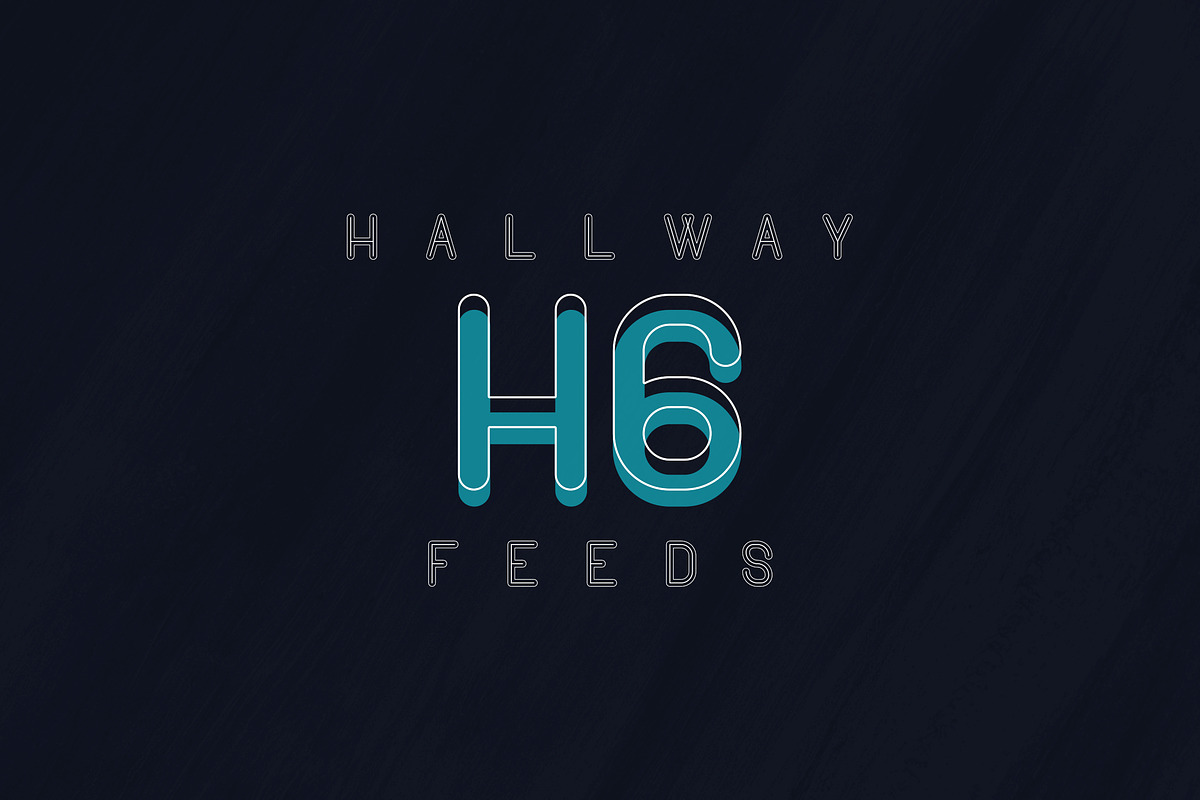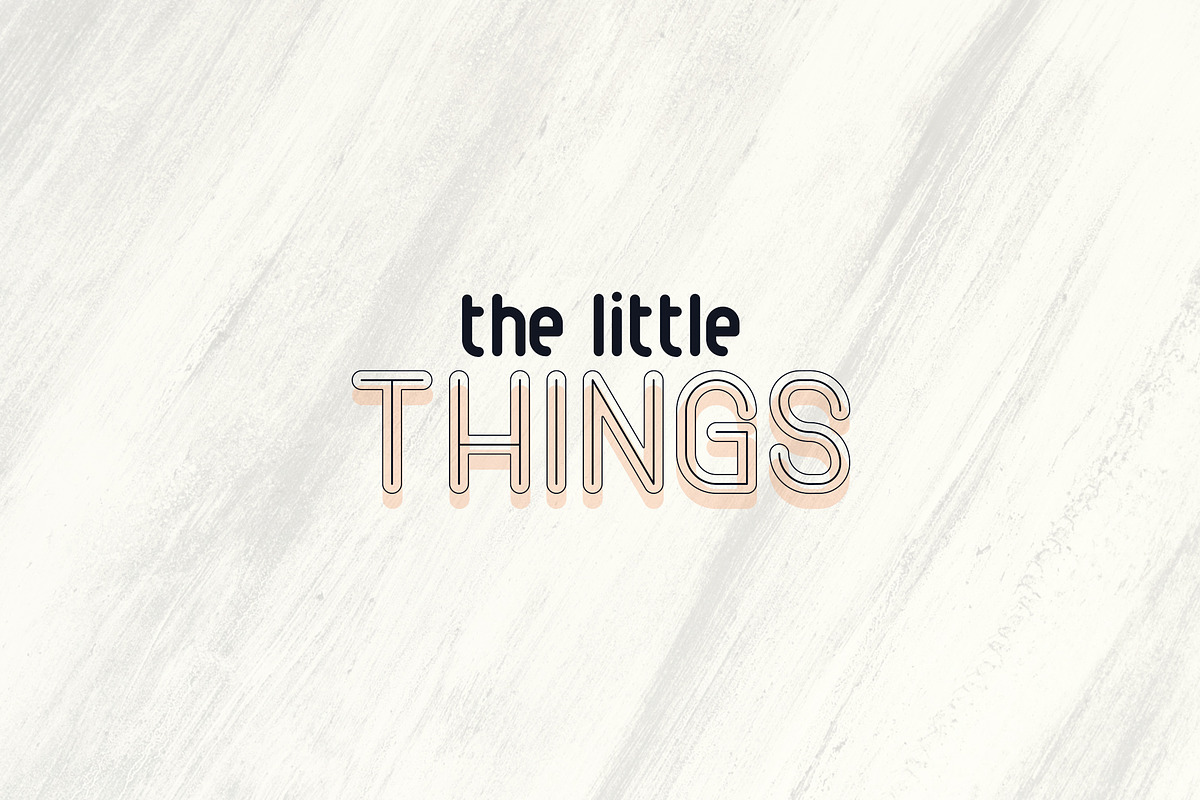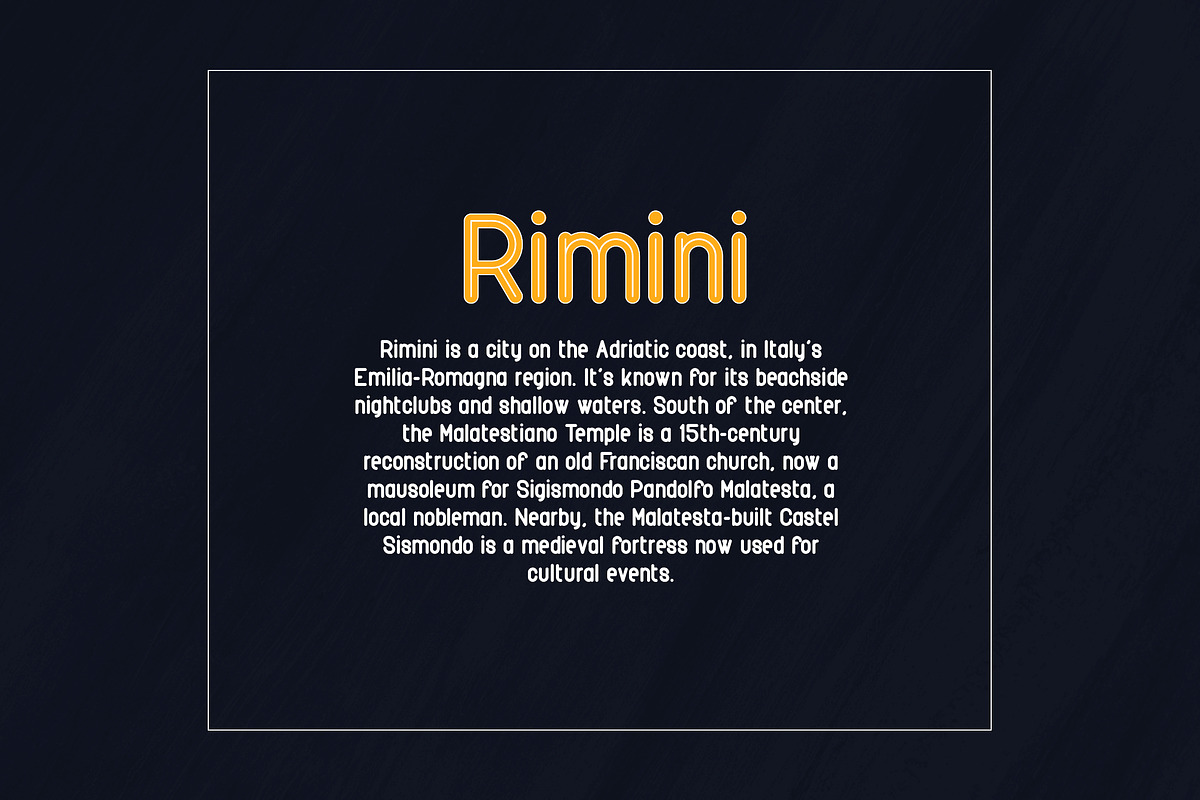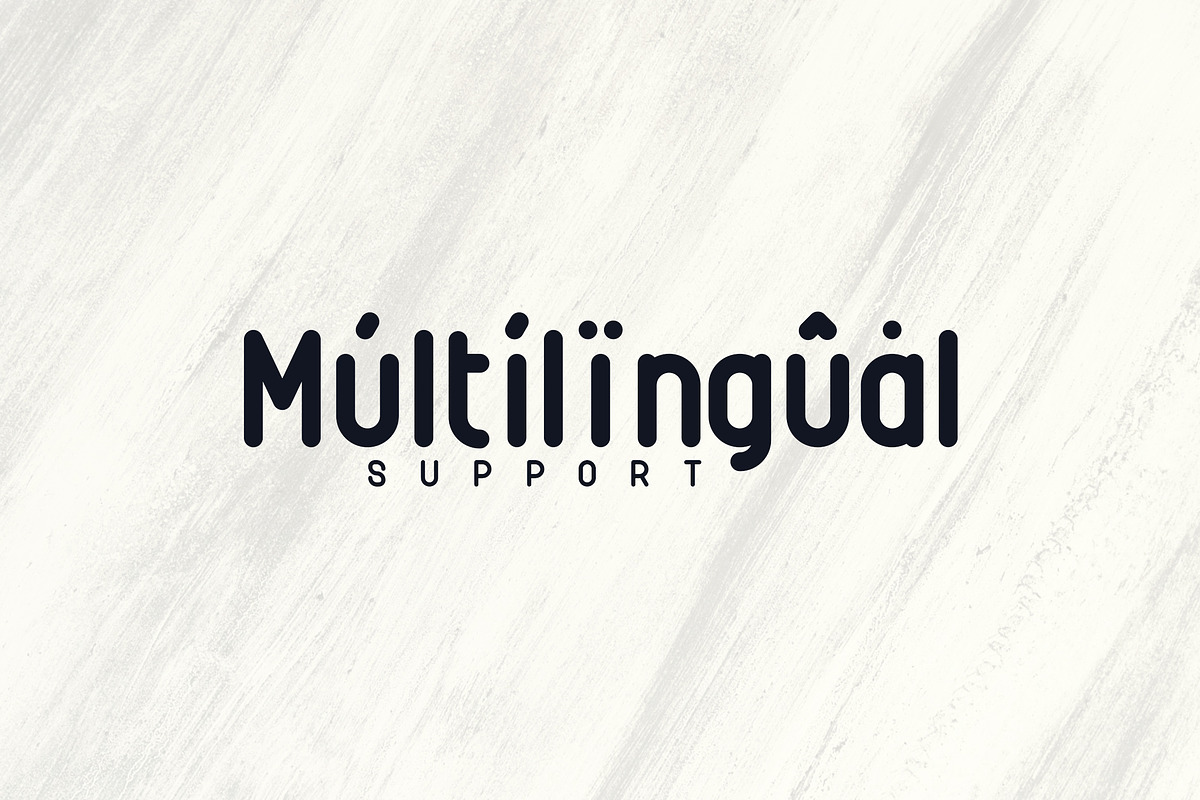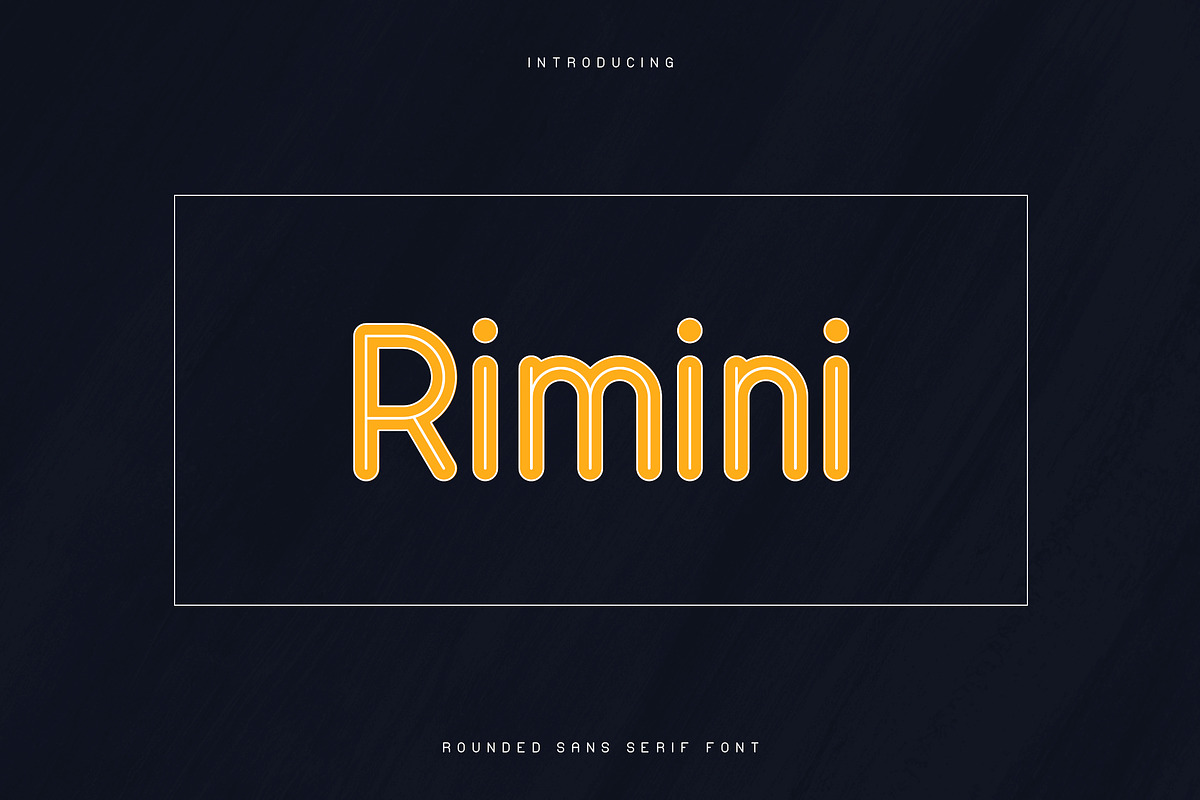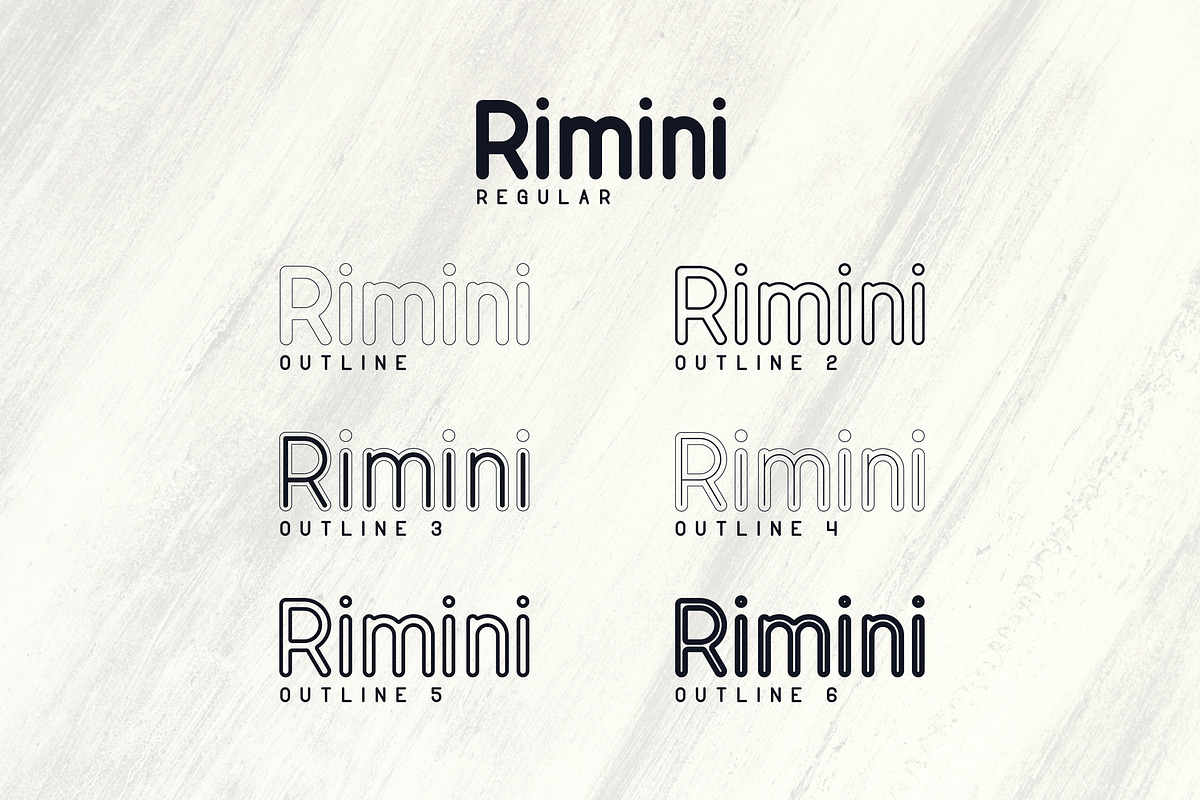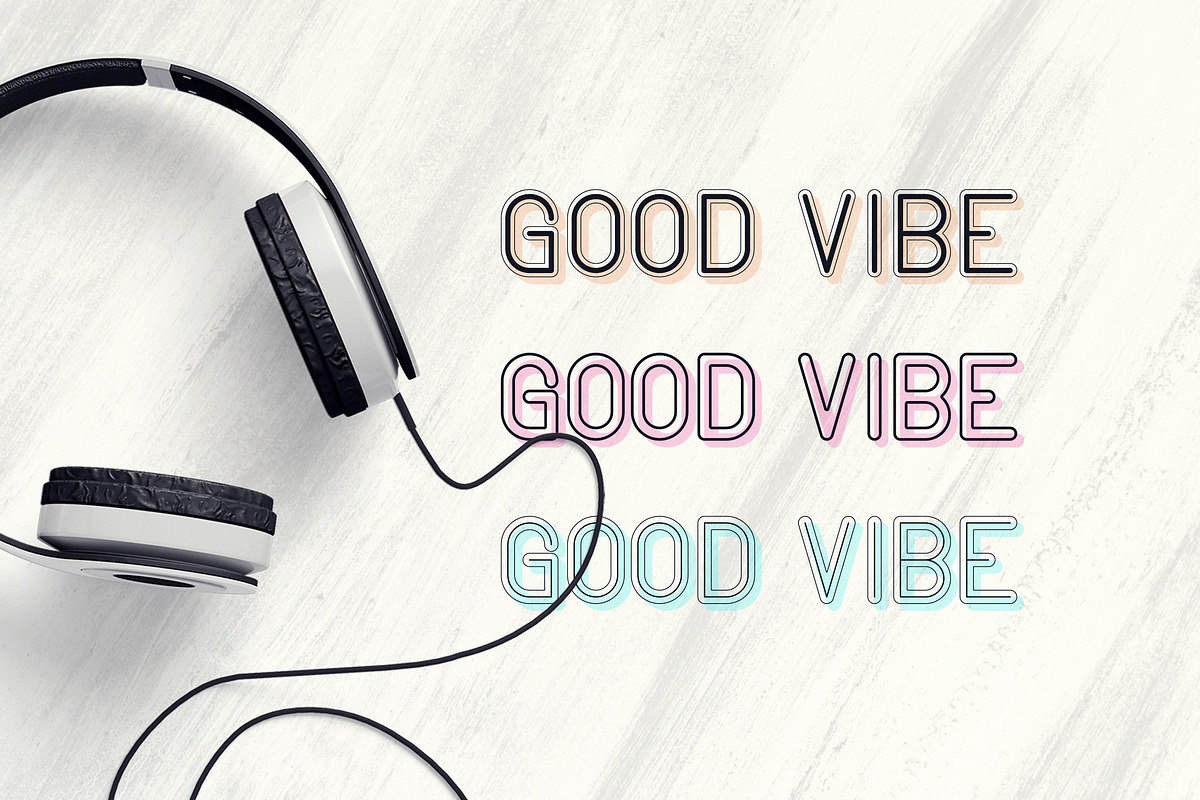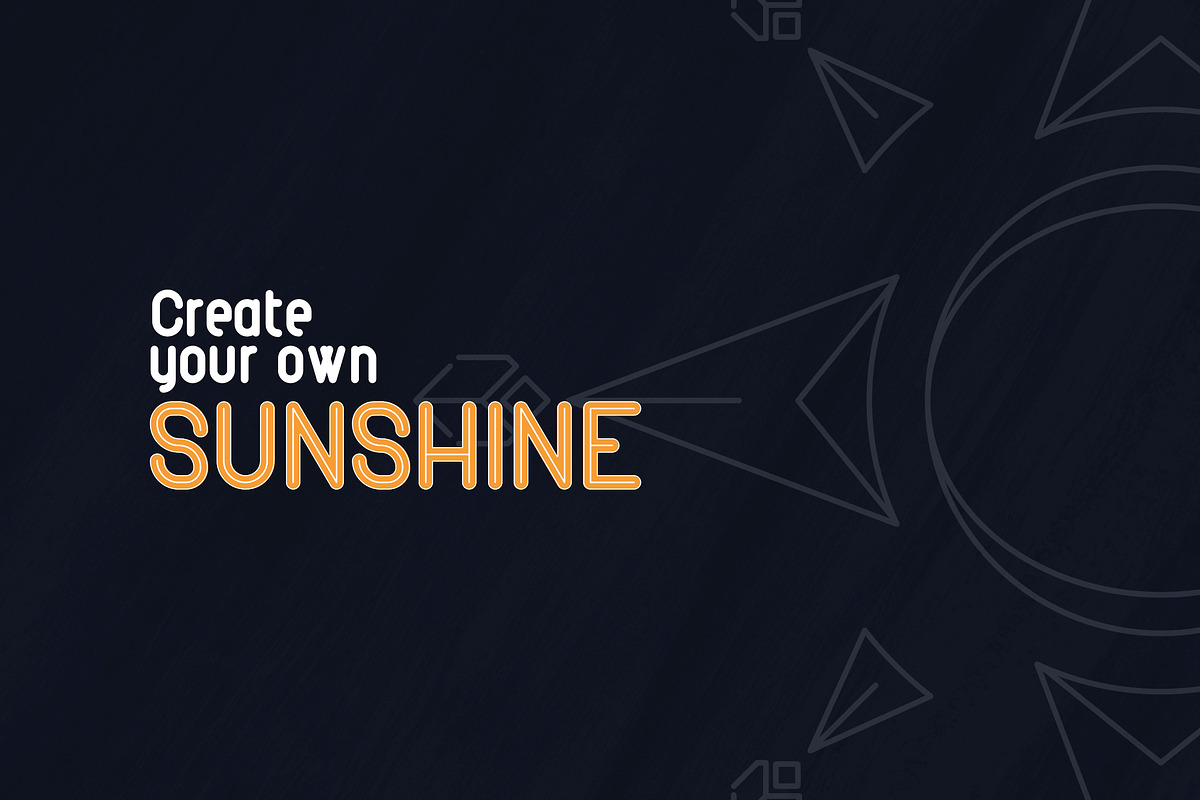
Rimini is clean, bold typeface with 7 fonts and multilingual support. It's a very versatile font that works great in large and small sizes.
Rimini is perfect for branding projects, home-ware designs, product packaging, magazine headers - or simply as a stylish text overlay to any background image.
- Uppercase,lowercase,numeral,punctuation & Symbol Multilingual Regular 6 Outline fonts Feel free to contact me if you have any questions!